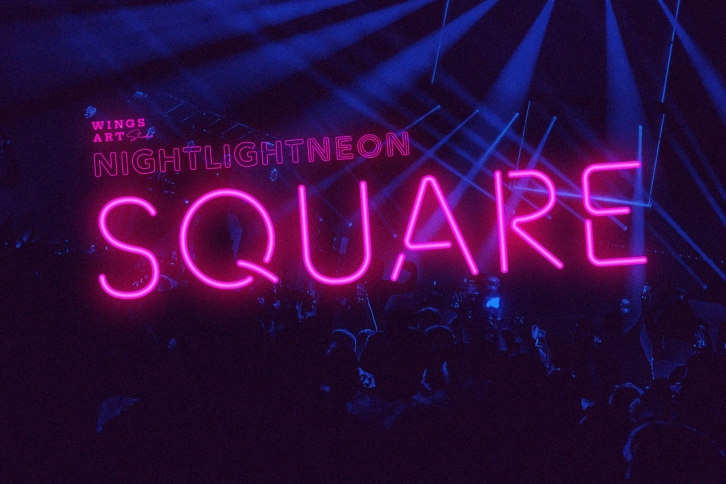
Night Light Neon is a trendy and unique font with an authentic style. It was designed by Wings Art Studio and it's a great choice for creative people who need such a font. It was released on February 1, 2021 and the file size is 6.36 MB. Night Light Neon will add an organic vibe to any design idea!